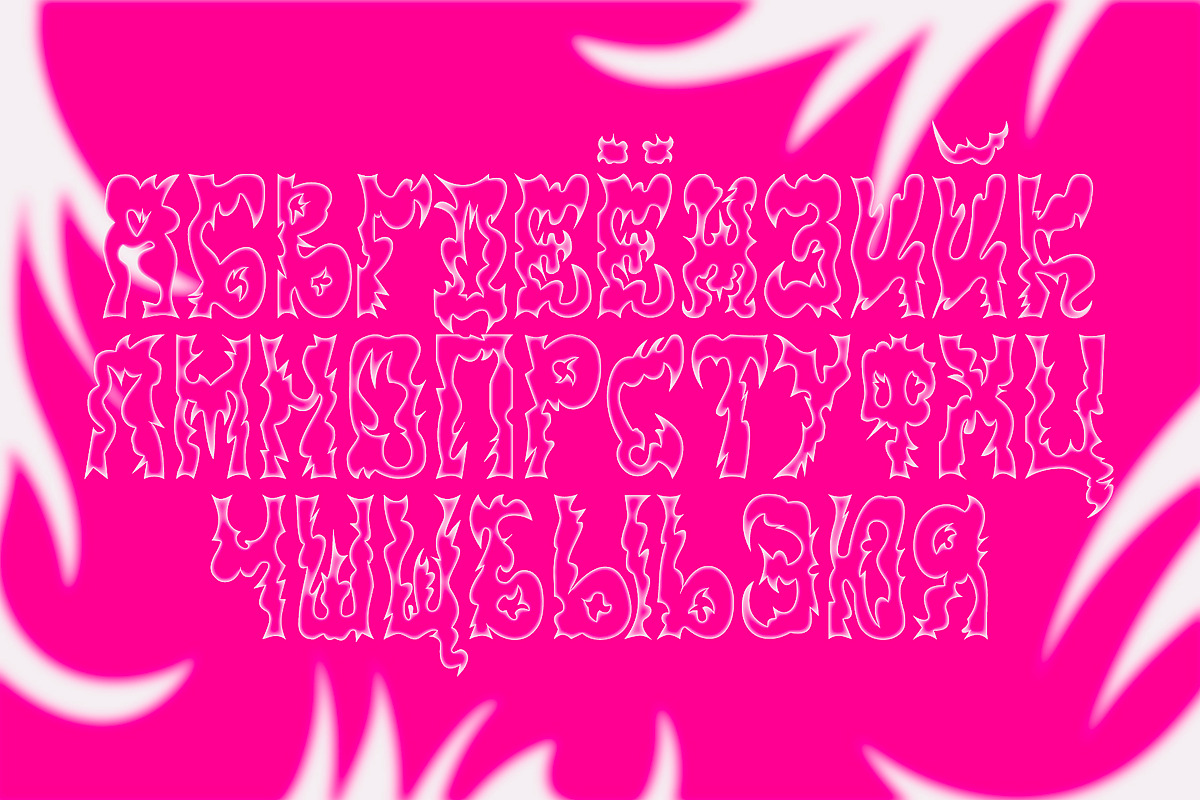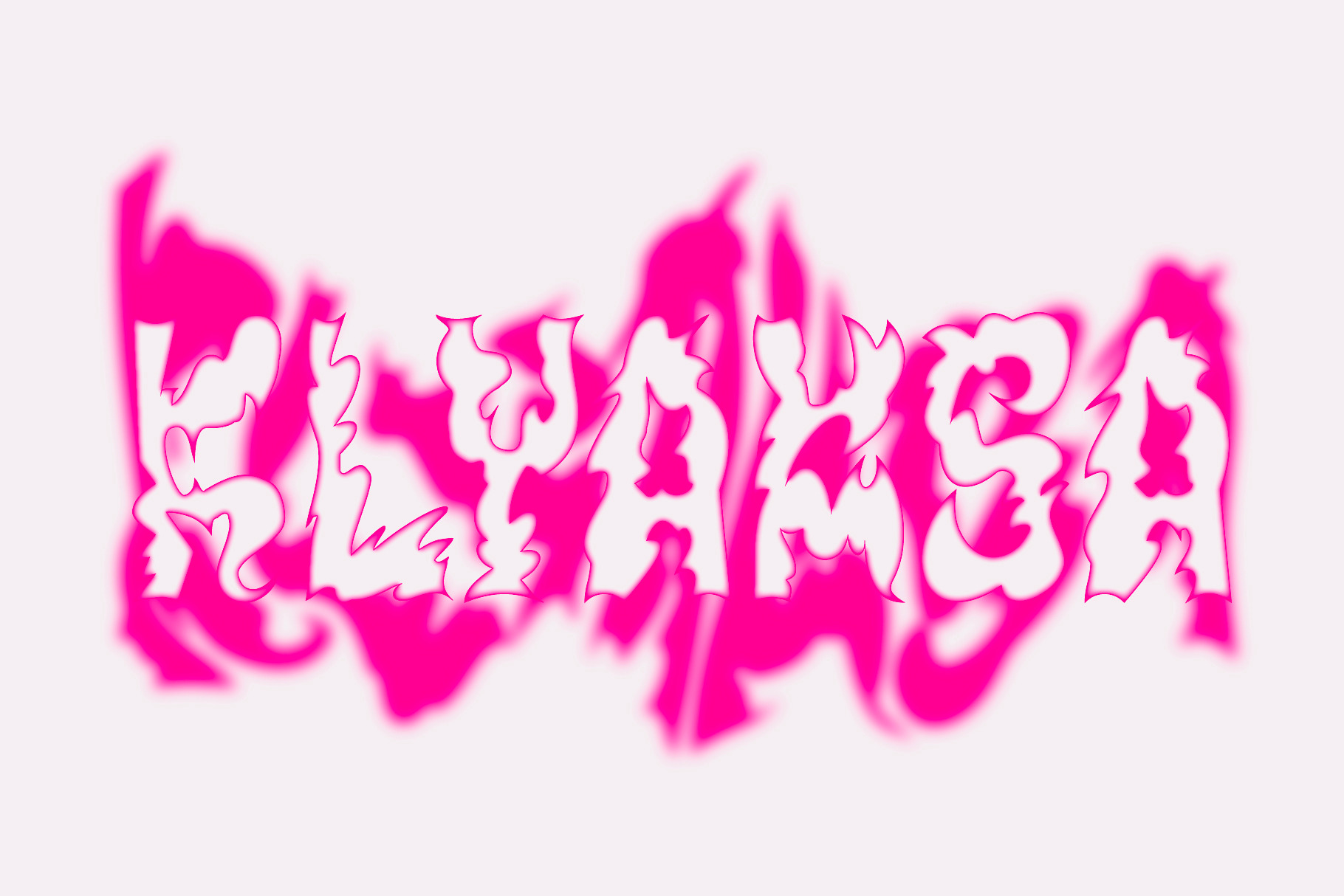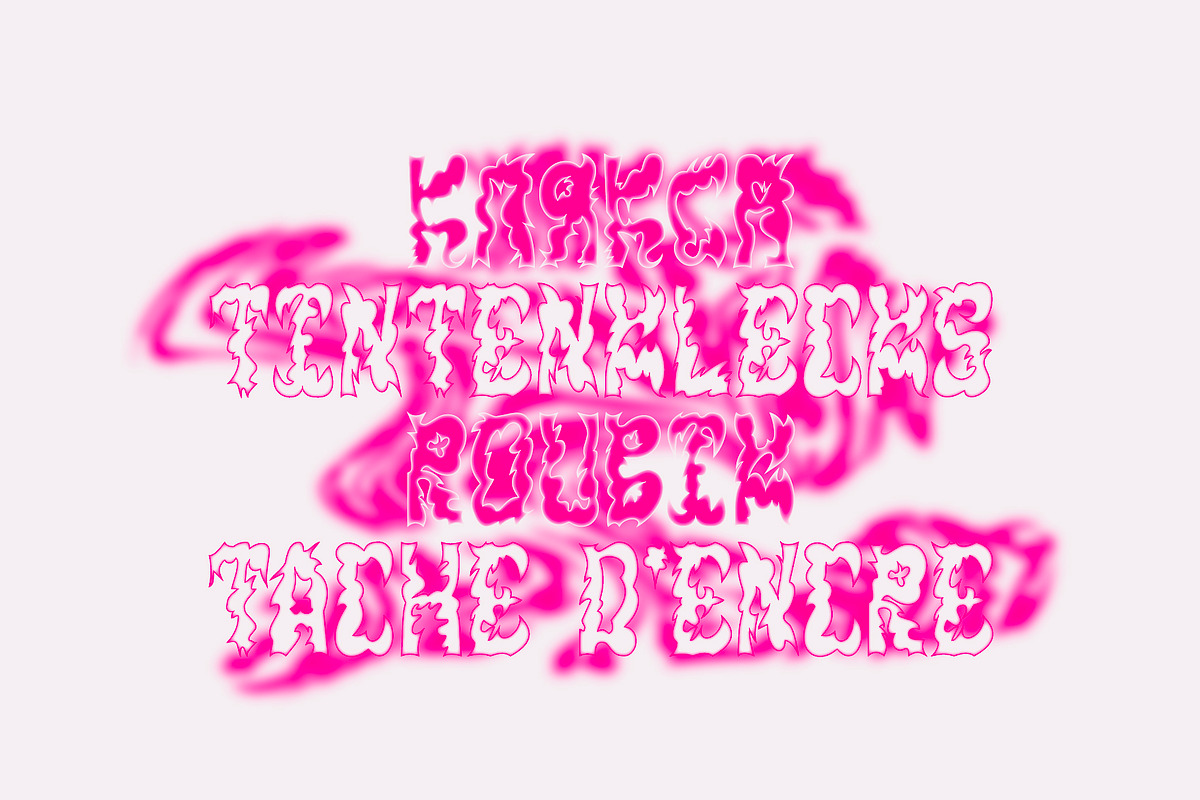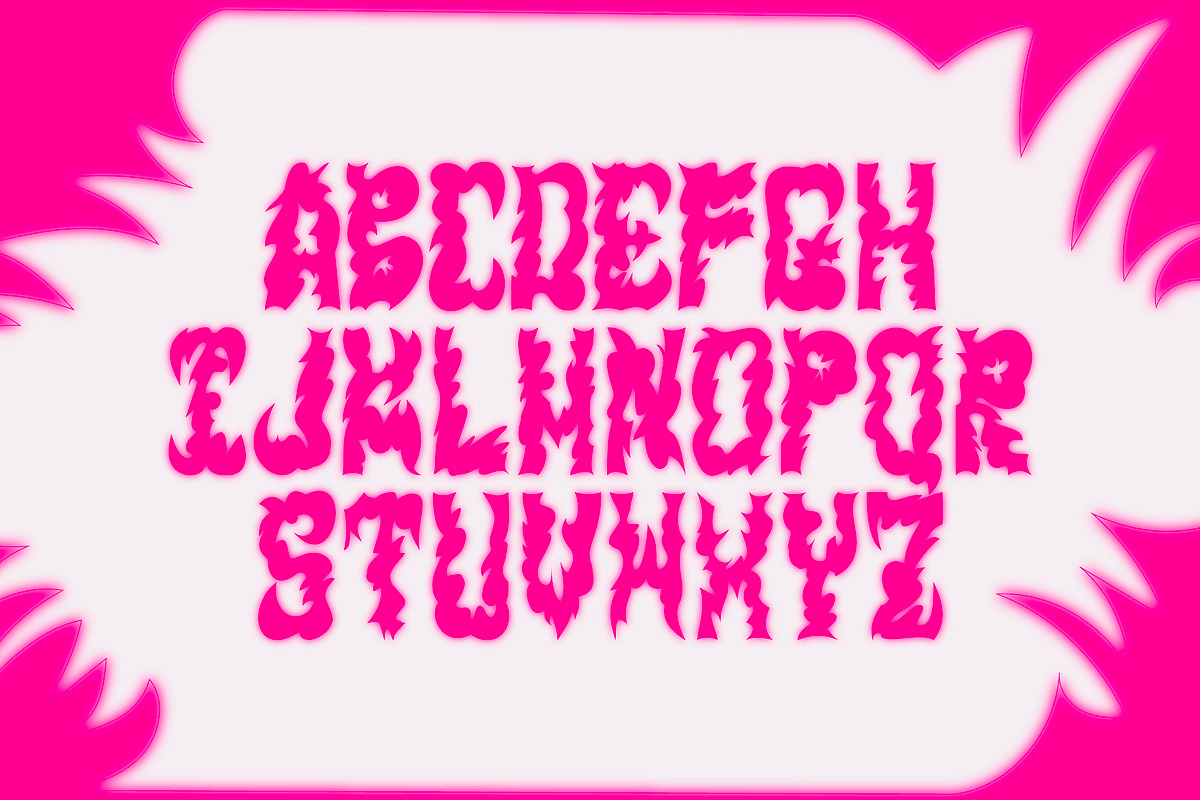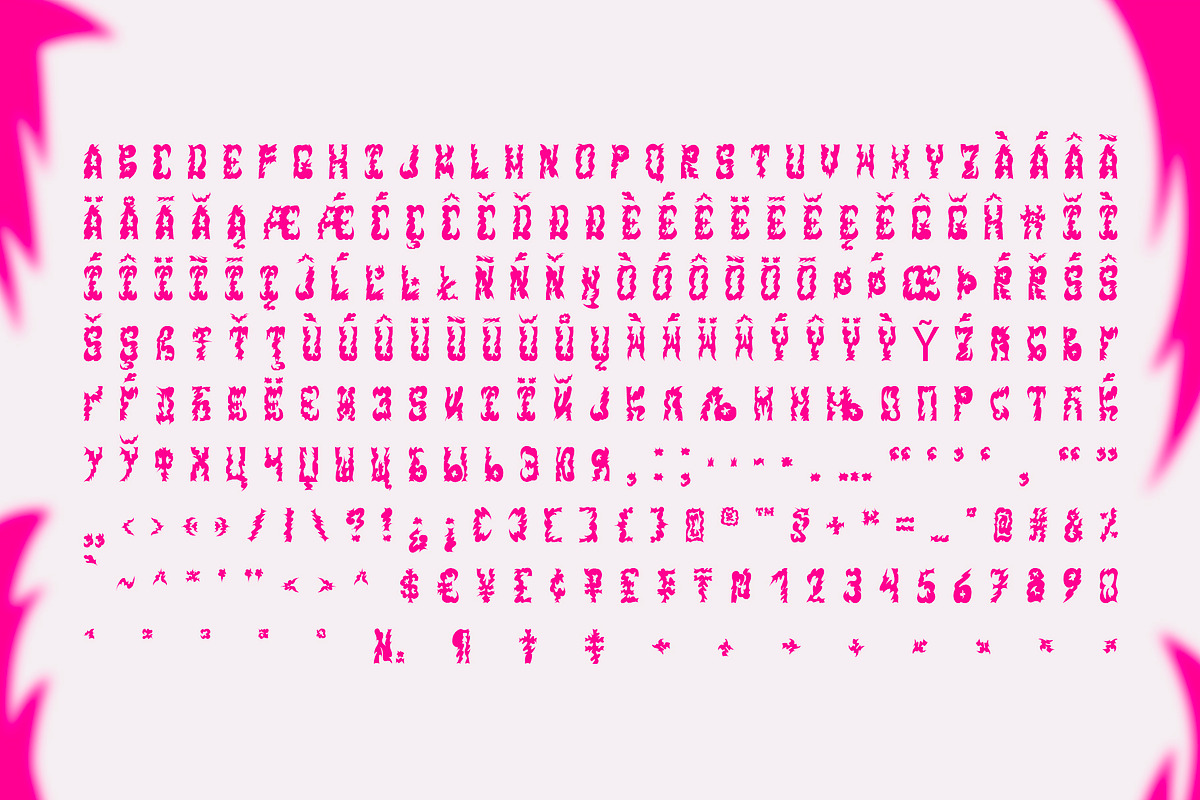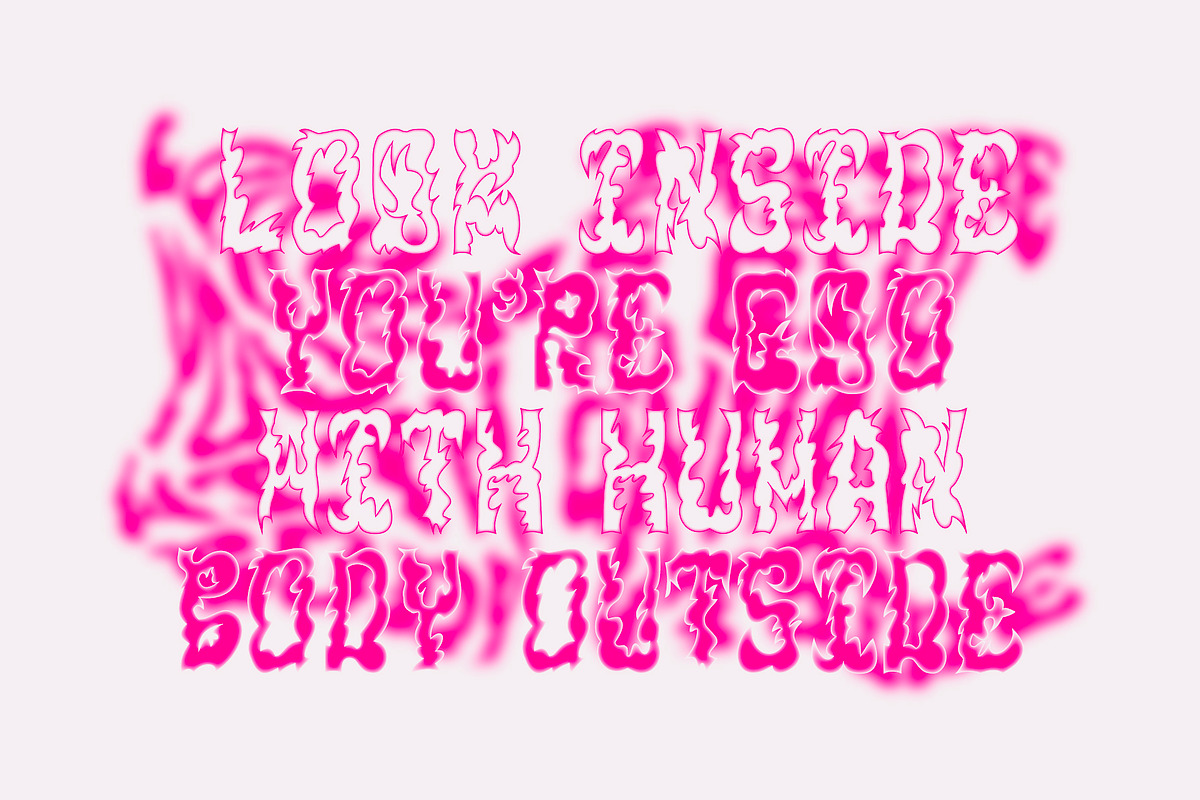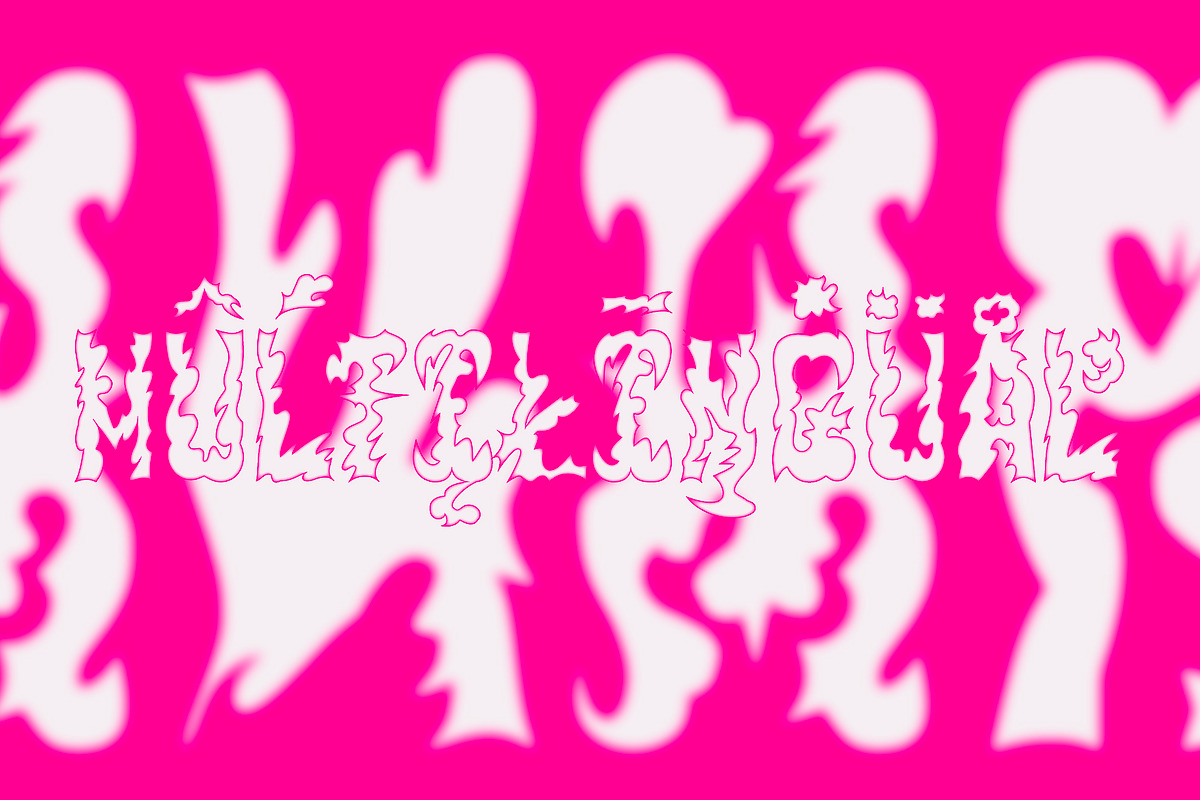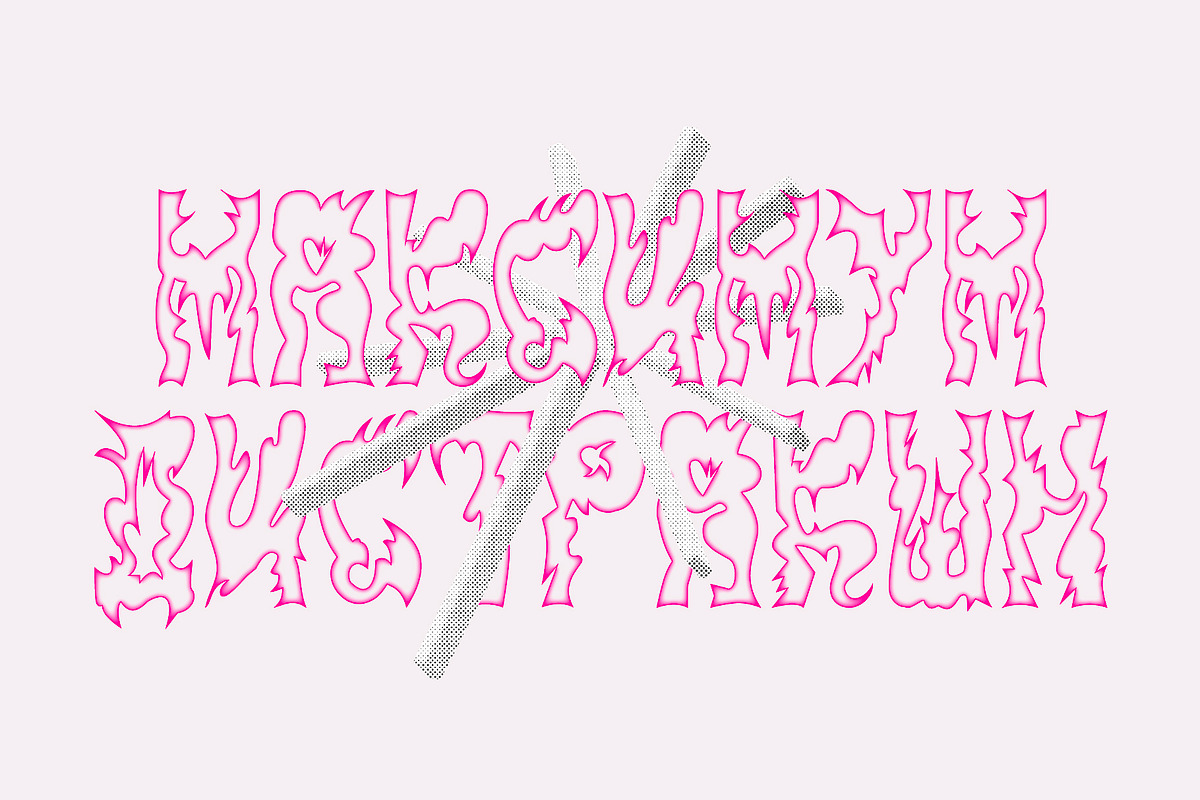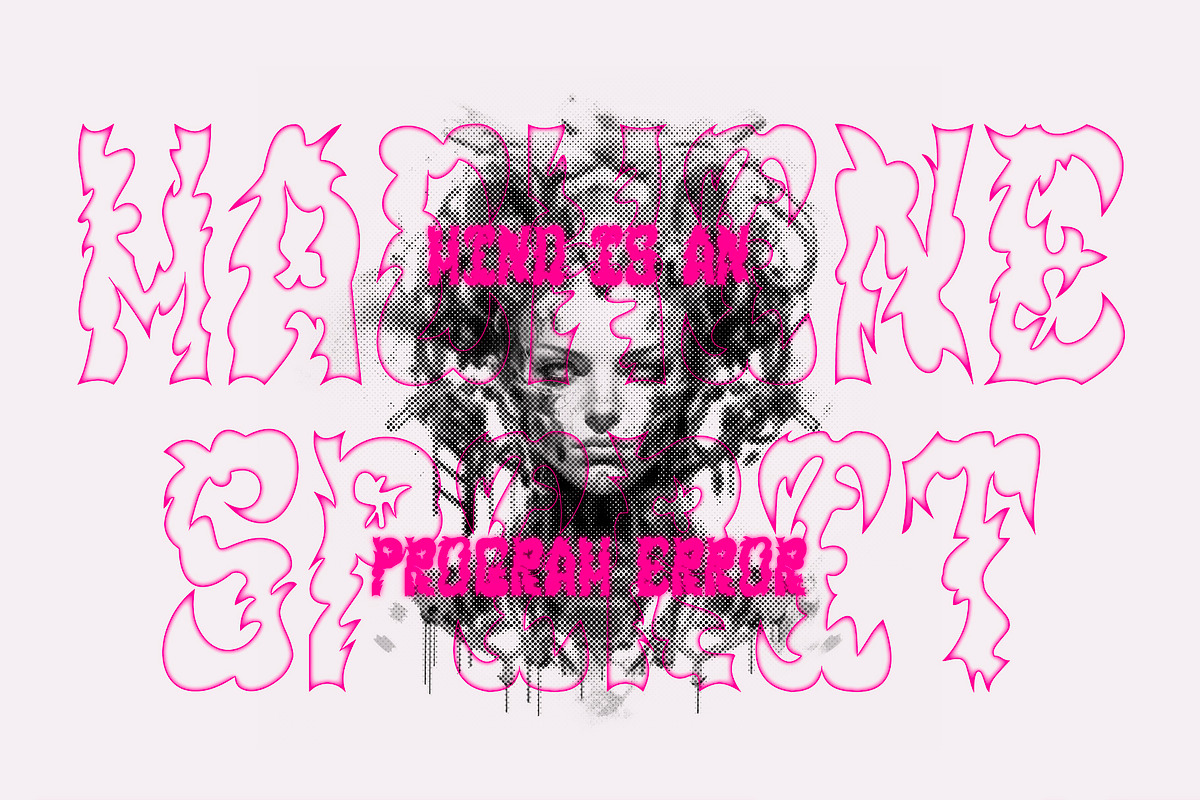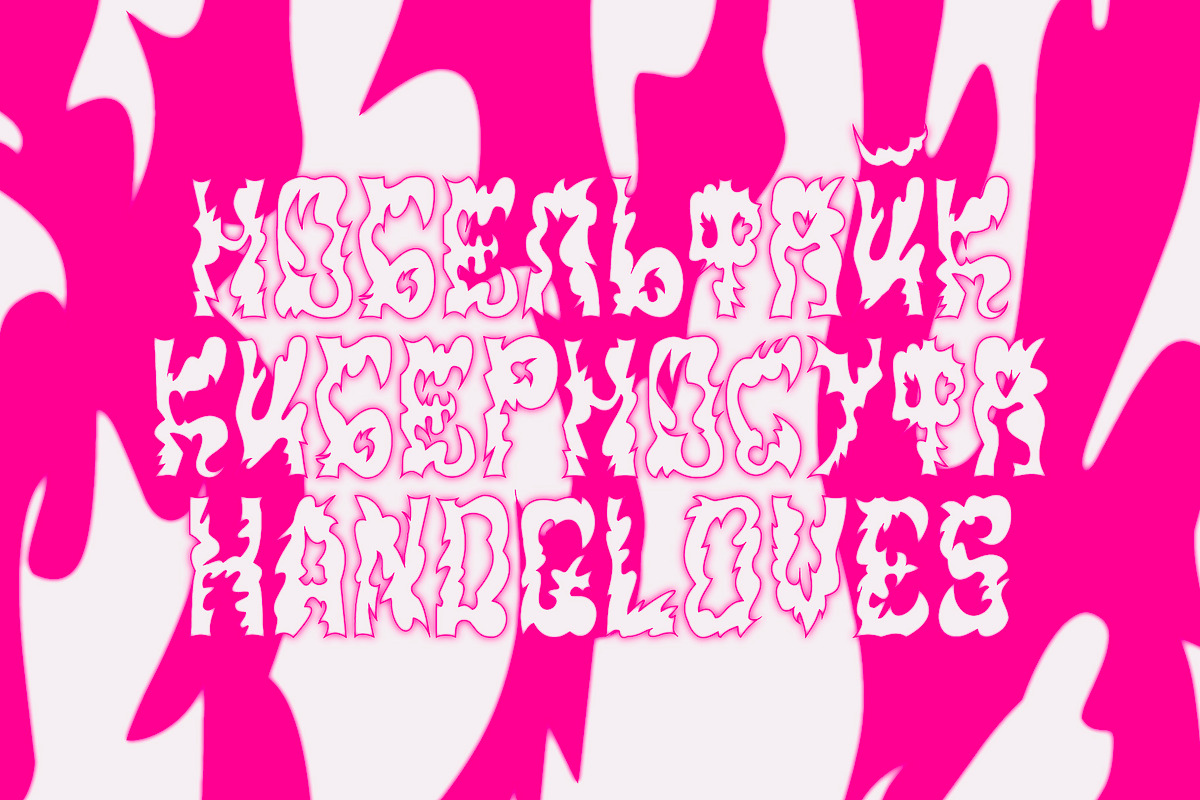
SK Klyaksa — Experimental Typeface
SK Klyaksa is an experimental font inspired by the most striking and unusual artistic techniques of graffiti art. Its non-standard shapes, rounded points and hypnotic curved lines immerse you in the world of bright colors and unlimited creative freedom on the streets of the city. The SK Klyaksa font plays on the contrast between lightness and heaviness, creating an effect of brightness and dynamism, creating bright and emotional compositions that perfectly emphasize youth and individuality. Like graffiti art, the font speaks its own language and provokes bold decisions in graphic design, bringing originality and character to any project.